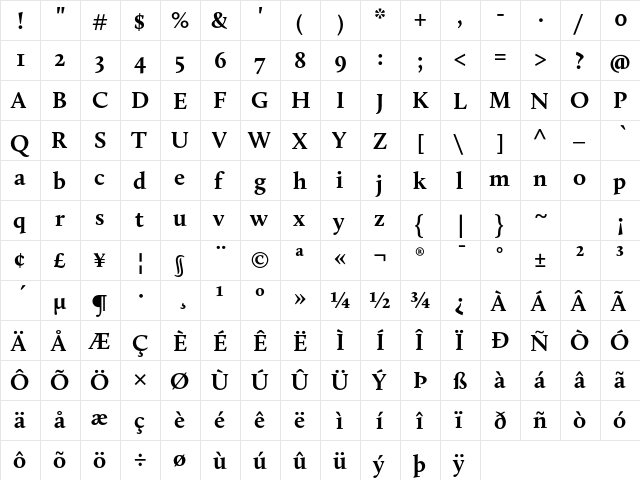
Calluna Bold Font Preview
Calluna Bold
| Designer | Jos Buivenga |
Design Context for Calluna Typeface
Calluna offers clean, dependable letterforms without strong stylistic allegiance, making it a practical choice for designers who need flexibility. Its bold stroke weight gives it real presence on the page.